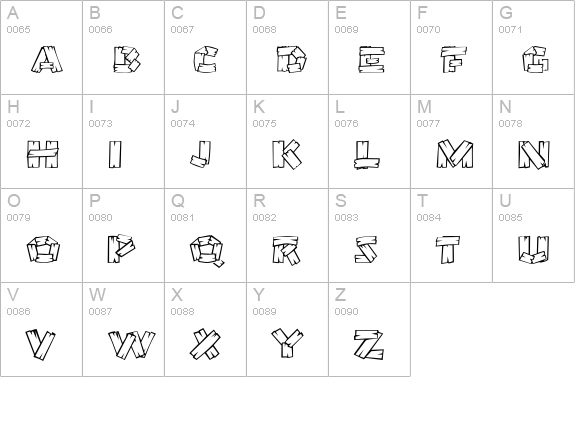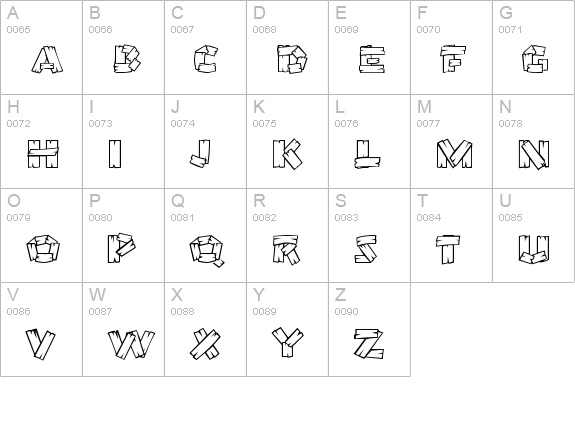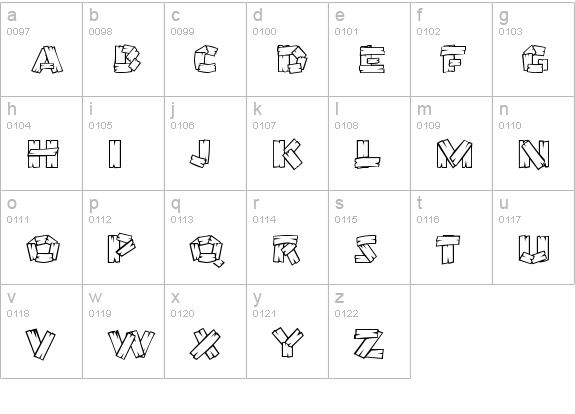
OutHouseDisplayCaps Font Details
OutHouseDisplayCaps font is a unique and eye-catching typeface that exudes a rustic charm and vintage appeal. Its bold and stylized letterforms make it perfect for headlines, titles, and other display purposes. The font features intricate details and a handcrafted feel, giving your designs a touch of authenticity and character. The best part? OutHouseDisplayCaps font is available for free download at FontsMarket.com, making it accessible to designers and creatives looking to add a distinctive flair to their projects without breaking the bank. Whether you're working on posters, packaging, invitations, or branding materials, this font is sure to make a bold statement and leave a lasting impression. Download OutHouseDisplayCaps font today and unleash your creativity with this versatile and captivating typeface.